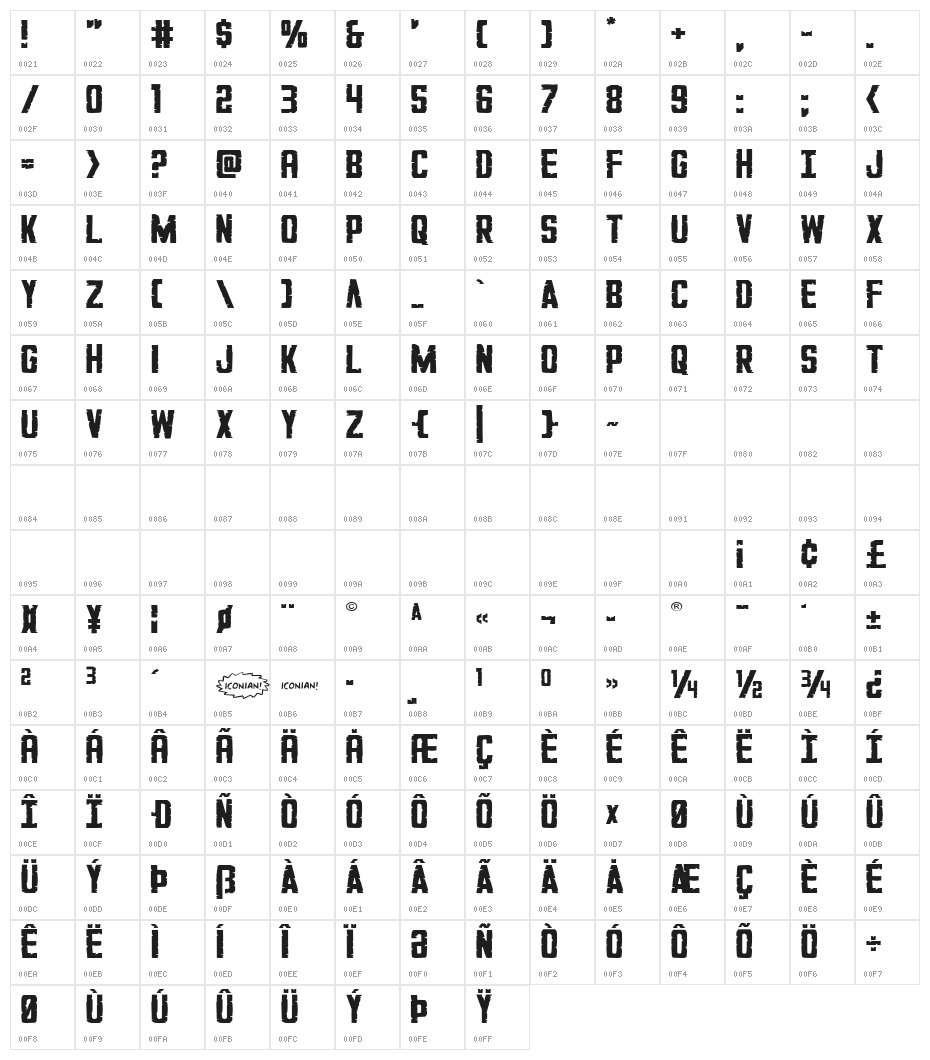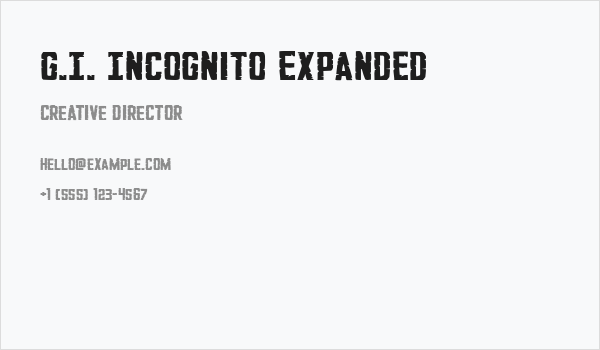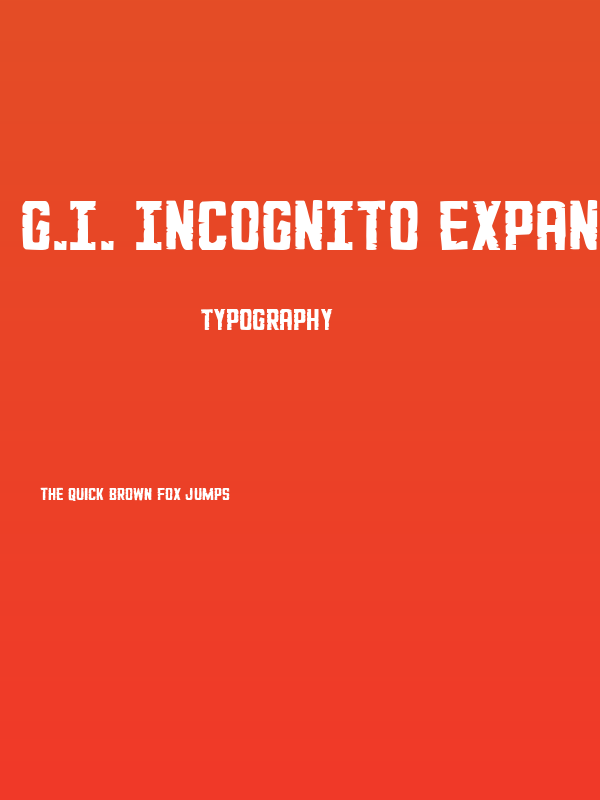
G.I. Incognito Expanded Font
G.I. Incognito Expanded Description
This font features a bold, rugged style with a distressed appearance, giving it a unique and edgy look. The characters are blocky and robust, with irregular edges that suggest a worn or weathered texture. This design choice adds a sense of movement and dynamism to the text, making it stand out. The uppercase letters are consistent in height, while the numerals and special characters maintain the same bold and distressed aesthetic. The font's expanded width allows for a strong presence on the page, making it ideal for attention-grabbing headlines or titles.
| Proposed Projects | Ideal for use in posters, album covers, video game graphics, or any project requiring a bold, edgy aesthetic. |